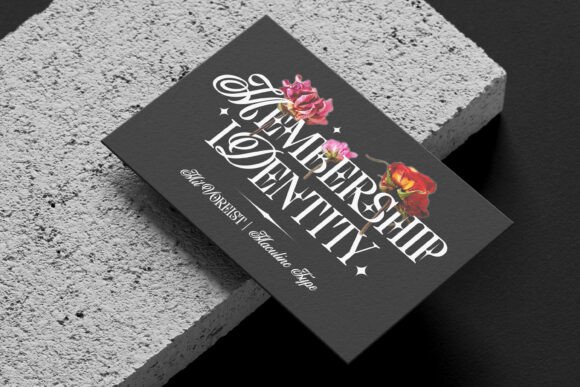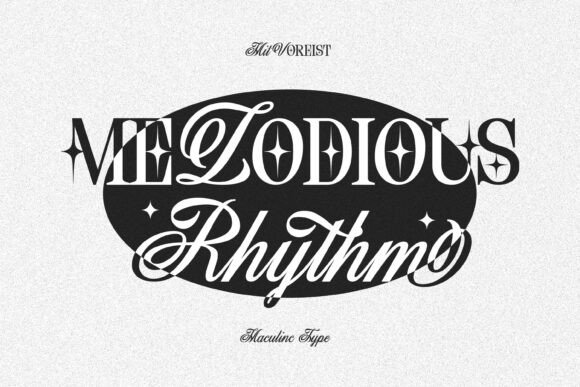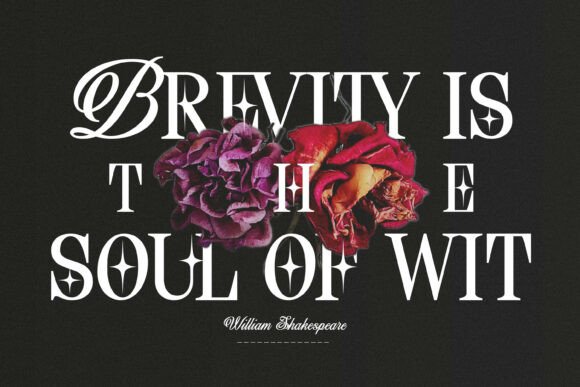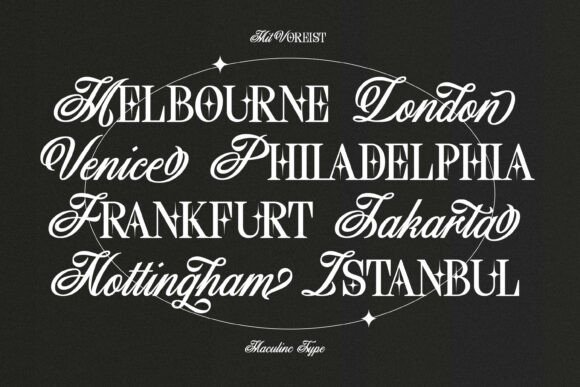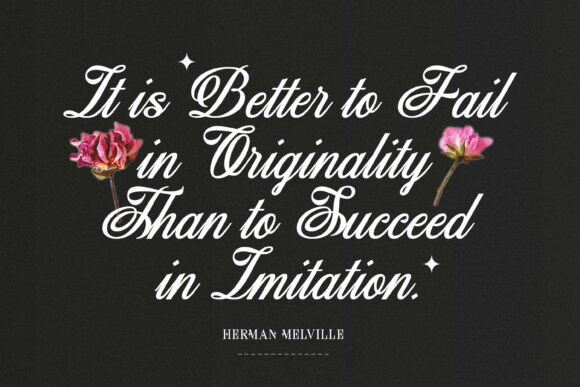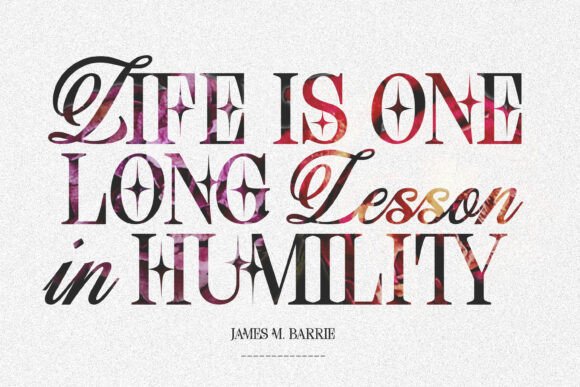
Introduction to Mit Voreist Font
Have you ever stared at a blank design canvas, searching for the perfect font to bring your creative project to life? As designers, we’ve all been there – scrolling through font libraries, hoping to stumble upon that elusive combination of style and sophistication. For me, that moment came when I discovered the Mit Voreist Font. Its elegant blend of serif and script typefaces is nothing short of magic.
As a design resource, Mit Voreist Font is a high-quality treasure trove of typography. Its high-contrast glyphs feature soft curves and subtle star accents, creating a balanced and elegant feel that’s both feminine and masculine. Whether you’re working on a body text or a display font, Mit Voreist Font is sure to add a touch of sophistication to your design. With its versatile package of two serif fonts and one script font, along with unique ligatures and alternate characters, the possibilities are endless.
Key Features of Mit Voreist Font
- Unique, modern design with a transparent background for versatility
- Includes multiple font styles and weights for added creative flexibility
Honest Review: Mit Voreist Font
As a designer, I’m always on the lookout for high-quality design resources that can elevate my creative projects. Recently, I had the chance to try out the Mit Voreist Font, and I’m excited to share my thoughts with you.
- ✨ Unique and elegant design aesthetic that’s perfect for luxury or high-end projects
- ✨ Great for use in creative projects where a touch of sophistication is needed
- ✨ Offers a transparent background, making it easy to use with various design elements
- ⚠️ Limited character set, which may not be suitable for extensive text-based projects
- ⚠️ Not as versatile as some other fonts, which may limit its use in certain design scenarios
Overall, I think the Mit Voreist Font is a great addition to any designer’s toolkit, especially for those looking for a high-end, elegant font for their creative projects. The fact that it’s a free download is a major plus, making it an accessible design resource for designers of all levels.
Mit Voreist Font
Using Fonts with Transparent Background
Mit Voreist Font has a transparent background, making it perfect for use on images or videos with complex backgrounds. To use it, simply apply the font to your text elements and adjust the opacity as needed.
Mit Voreist Font is commonly used in creative projects such as logos, branding, and marketing materials. It’s also ideal for use in social media graphics, presentations, and website design.
Alternatives to Mit Voreist Font
Great Vibes Font is a high-quality, handwritten design resource ideal for creative projects. It features a variety of swashes and flourishes that add a personal touch to any design. Great Vibes Font is available for free download with a transparent background, making it perfect for digital designs.
Compared to Mit Voreist Font, Great Vibes Font has a more casual and playful feel, making it suitable for projects that require a relaxed atmosphere. While Mit Voreist Font is more formal, Great Vibes Font is perfect for creative projects that need a touch of personality.
Carolyna Pro Font is a modern, high-quality design resource that features a unique blend of script and sans-serif elements. It’s ideal for creative projects that require a touch of elegance and sophistication. Carolyna Pro Font is available for free download with a transparent background, making it perfect for digital designs.
Compared to Mit Voreist Font, Carolyna Pro Font has a more modern and sleek feel, making it suitable for projects that require a contemporary look. While Mit Voreist Font is more traditional, Carolyna Pro Font is perfect for creative projects that need a touch of modernity.